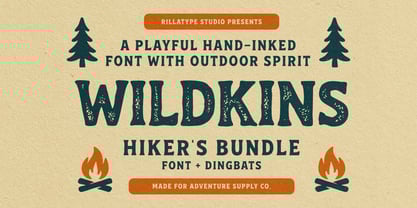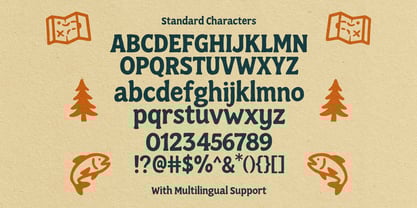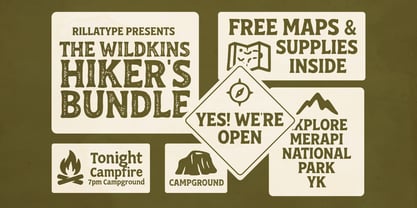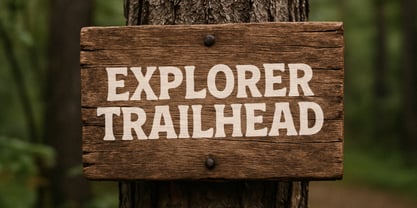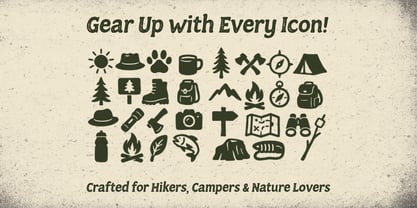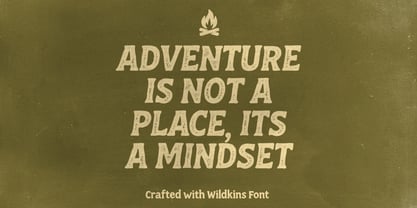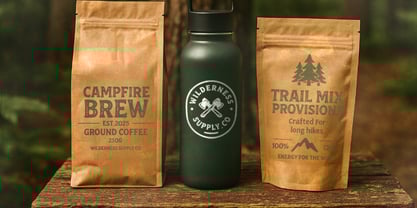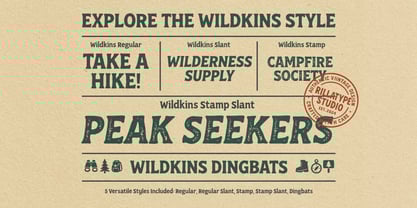
RT Wildkins
by Rillatype
The RT Wildkins Font Family was designed by Gustian Agung Asprilla and published by Rillatype. RT Wildkins contains 5 styles and family package options.
Wildkins is a bold, hand-drawn typeface inspired by vintage outdoor signage and adventure badges. With its rugged charm and playful curves, this font is perfect for branding, headlines, posters, apparel design, and anything that needs a touch of wilderness spirit.
The Wildkins type family includes 4 unique styles: Regular, Slant, Stamp, and Stamp Slant — giving you the flexibility to create layered designs or mix textures with ease.
Also included is a bonus dingbat font packed with outdoor icons such as tents, campfires, maps, boots, and more — all crafted to match the font’s rough, inky personality.
Perfect for:
Adventure branding, outdoor event graphics, hiking apparel, signage, retro posters, and nature-inspired designs.